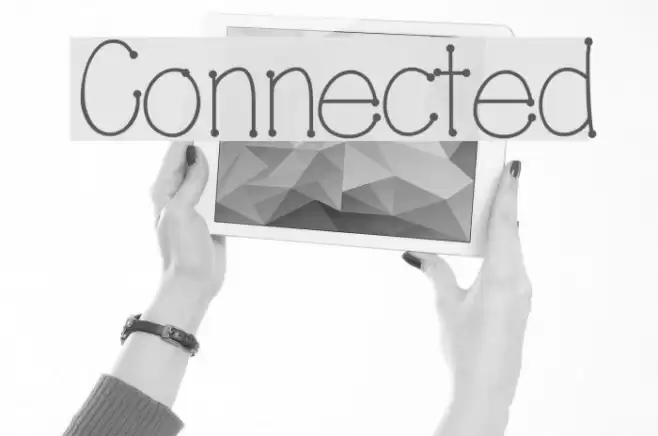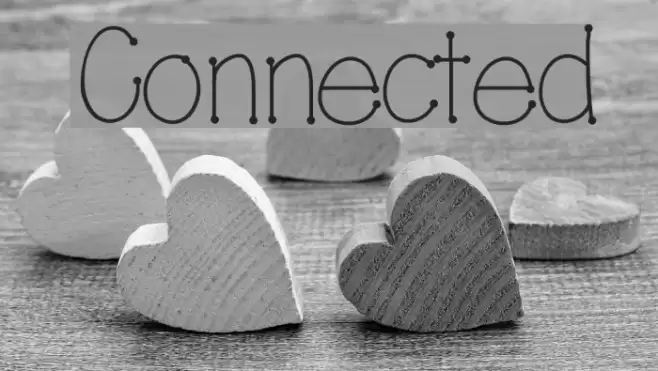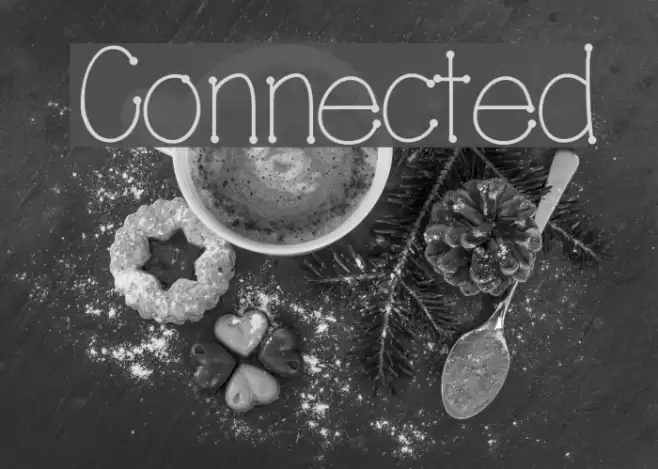
Connected Font
Connected Description
This font features a unique and playful design with each character connected by lines and dots, creating a whimsical and modern appearance. The uppercase and lowercase letters maintain a consistent style, with rounded edges and a uniform stroke width. The numbers and special characters follow the same connected theme, adding to the cohesive look of the font. Its distinctive style makes it stand out, while still being legible and versatile.
A playful, connected font with lines and dots creating a whimsical look from Uncategorized fonts.
- Proposed Projects: Ideal for children's books, playful branding, creative posters, and unique invitations.
- Use Case: Headlines, Logos, Creative projects